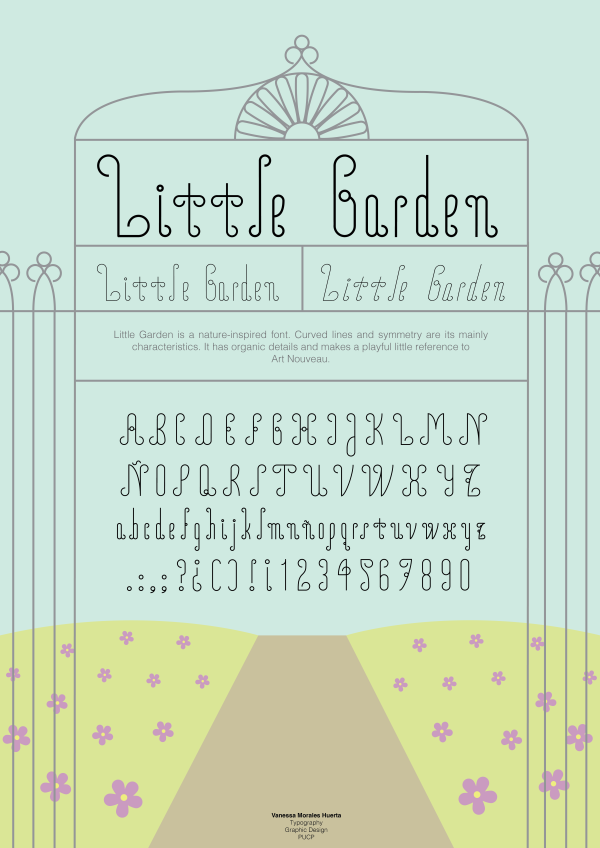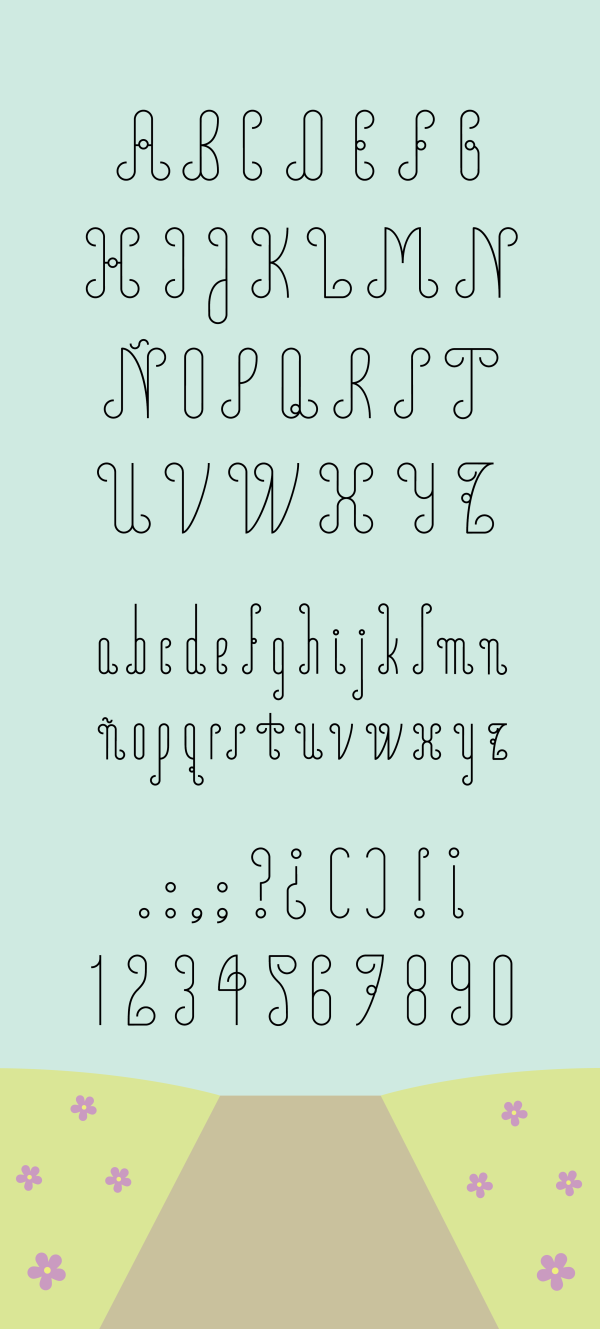
Little Garden
Little Garden is a nature-inspired font. Curved lines and symmetry are its mainly characteristics. It has organic details and makes a playful little reference to Art Nouveau.
Designer: Vanessa Morales Huerta
Publisher: Vanessa Morales Huerta